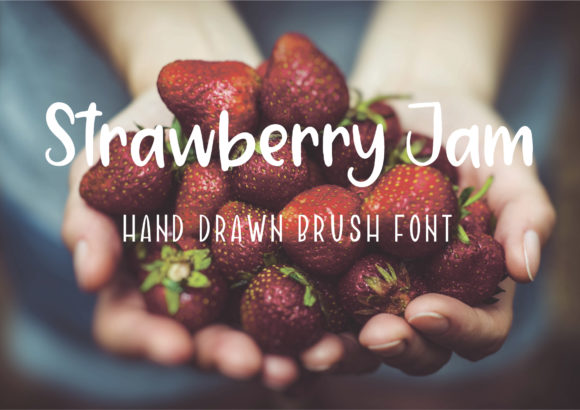
Strawberry Jam Font
Download Strawberry Jam Font for free! Created by Sentimental Postman and published by Quinn McNamara, this script font family is perfect for adding a unique touch to your designs.
Indulge in the sugary sweetness of Strawberry Jam, a delectable font that will tickle your taste buds and tantalize your designs. This tantalizing script font, lovingly crafted by Sentimental Postman, offers a delightful blend of charm and authenticity to captivate your audience.
With Strawberry Jam, you'll savor every letter as if it were a juicy strawberry, ripe with character and bursting with flavor. Its handwritten strokes evoke a sense of organic warmth, inviting you to create designs that are as cozy as a freshly baked pie. Whether you're crafting invitations that will make your guests' mouths water or designing packaging that will have shoppers reaching for their wallets, Strawberry Jam will add an irresistible touch of sweetness to every project.
Let Strawberry Jam be your secret ingredient for creating designs that are as delightful as a summer picnic. Its versatility will allow you to experiment with a myriad of design styles, adding a touch of whimsical charm to children's books, a touch of elegance to wedding invitations, or a dash of nostalgia to retro-inspired branding.
With Strawberry Jam, your designs will have a personality that is as vibrant and juicy as a bowl of ripe strawberries. Unleash your creativity and let this delectable font add a dash of sweetness to all your projects. Each letter will dance across the page like a sugary treat, leaving a lasting impression on your audience that will make them crave more.
So, if you're ready to add a touch of sugary sweetness to your designs, download Strawberry Jam today and let its handwritten charm tickle your taste buds and inspire your creations.